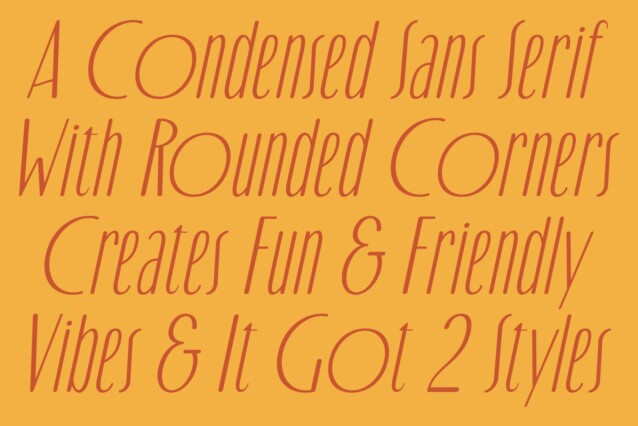
Folime Rounded Font
Folime Rounded Font is a modern sans serif font that blends sleekness with softness. Its condensed form ensures excellent visibility even in tight spaces, making it ideal for headlines and branding that need to make a strong impact. The font’s compact design allows it to fit seamlessly into various layouts without sacrificing readability, making it an optimal choice for both print and digital media where space efficiency is key.